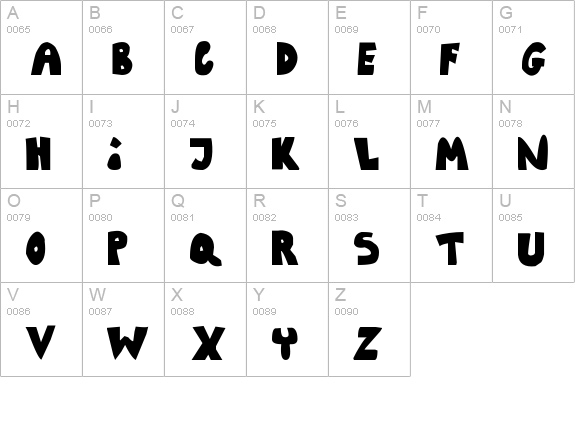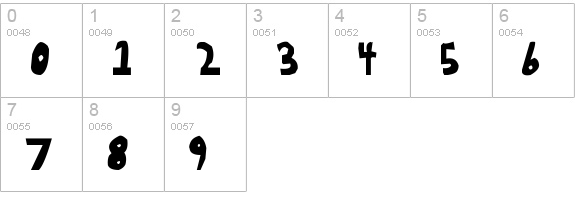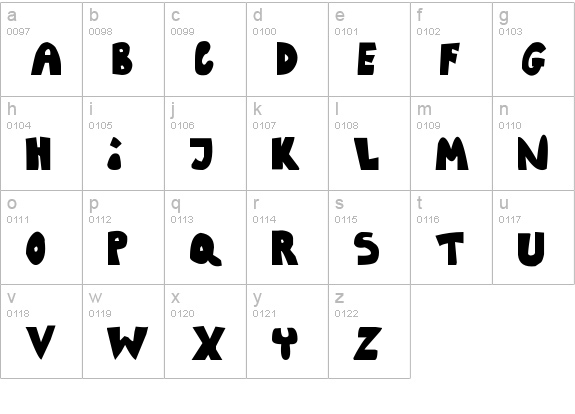
Running With Scissors Font Details
Running With Scissors font is a dynamic and eye-catching typeface that exudes a sense of energy and creativity. With its bold and playful letterforms, this font is perfect for adding a touch of fun and personality to any design project. Whether you're creating posters, logos, or social media graphics, Running With Scissors font will make your text stand out and grab attention. What's even better is that Running With Scissors font is completely free to download at FontsMarket.com. Yes, you read that right - you can get your hands on this fantastic font without spending a dime. So why wait? Head over to FontsMarket.com now and add Running With Scissors font to your collection today!